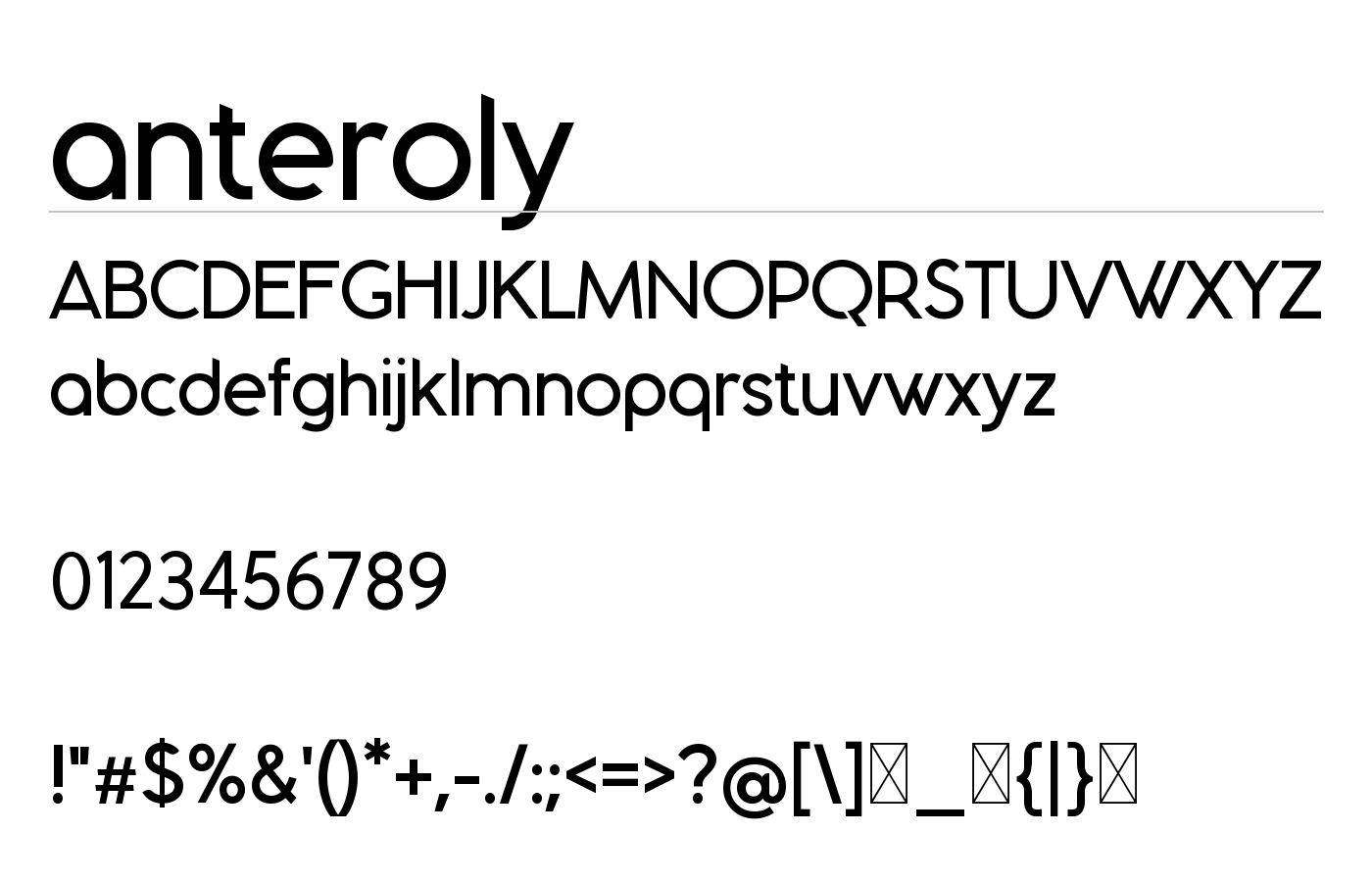
Anteroly is a clean, modern sans serif font with a slightly condensed structure and a balanced x-height that enhances readability. It features geometric shapes with subtle calligraphic influences, giving it a crisp yet friendly personality, ideal for contemporary branding, editorial layouts, and digital interfaces that require clarity with a touch of elegance. This versatile typeface works well in headlines and body text, making it a great choice for fashion, tech, and lifestyle projects seeking a refined but approachable look.
anteroly Font